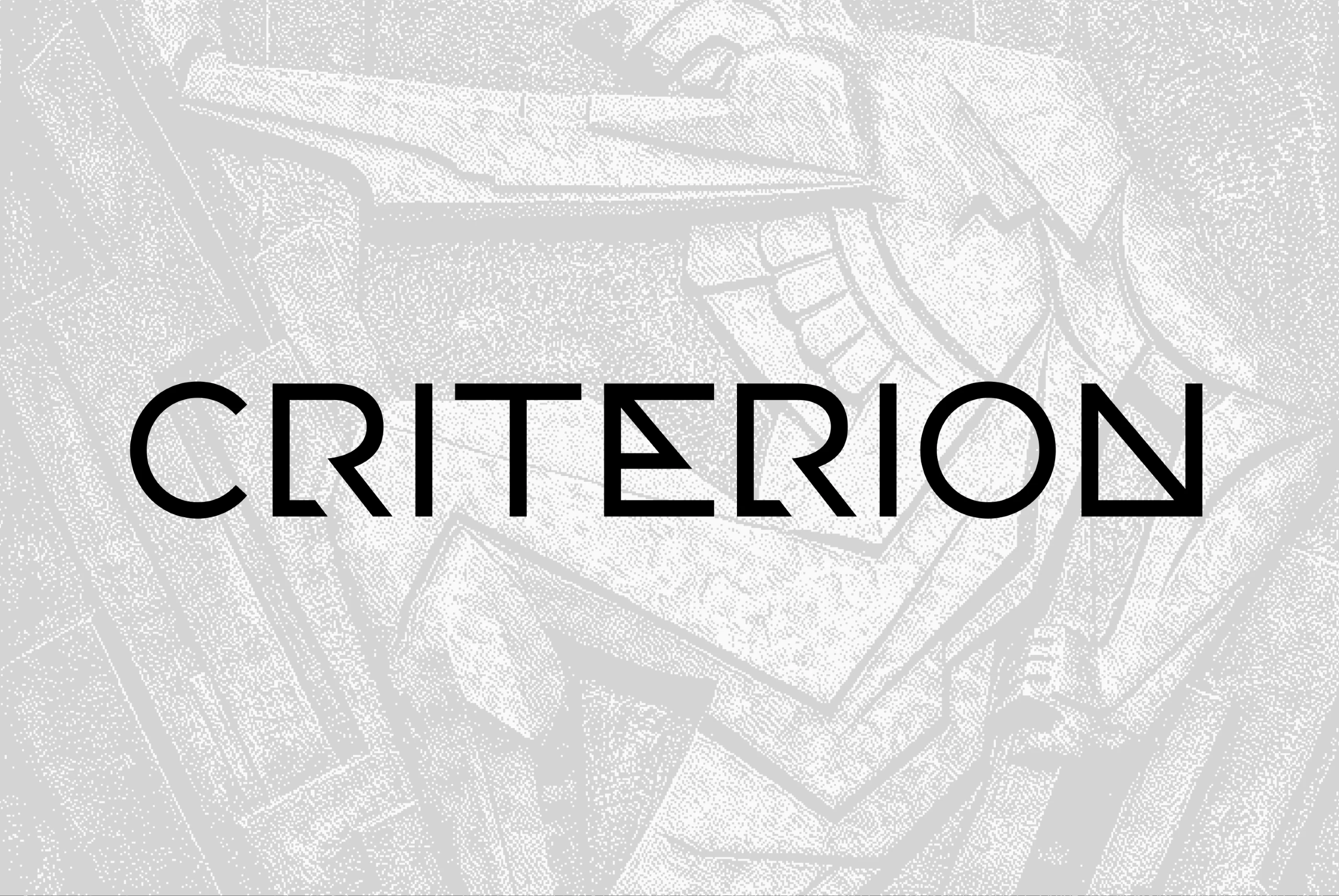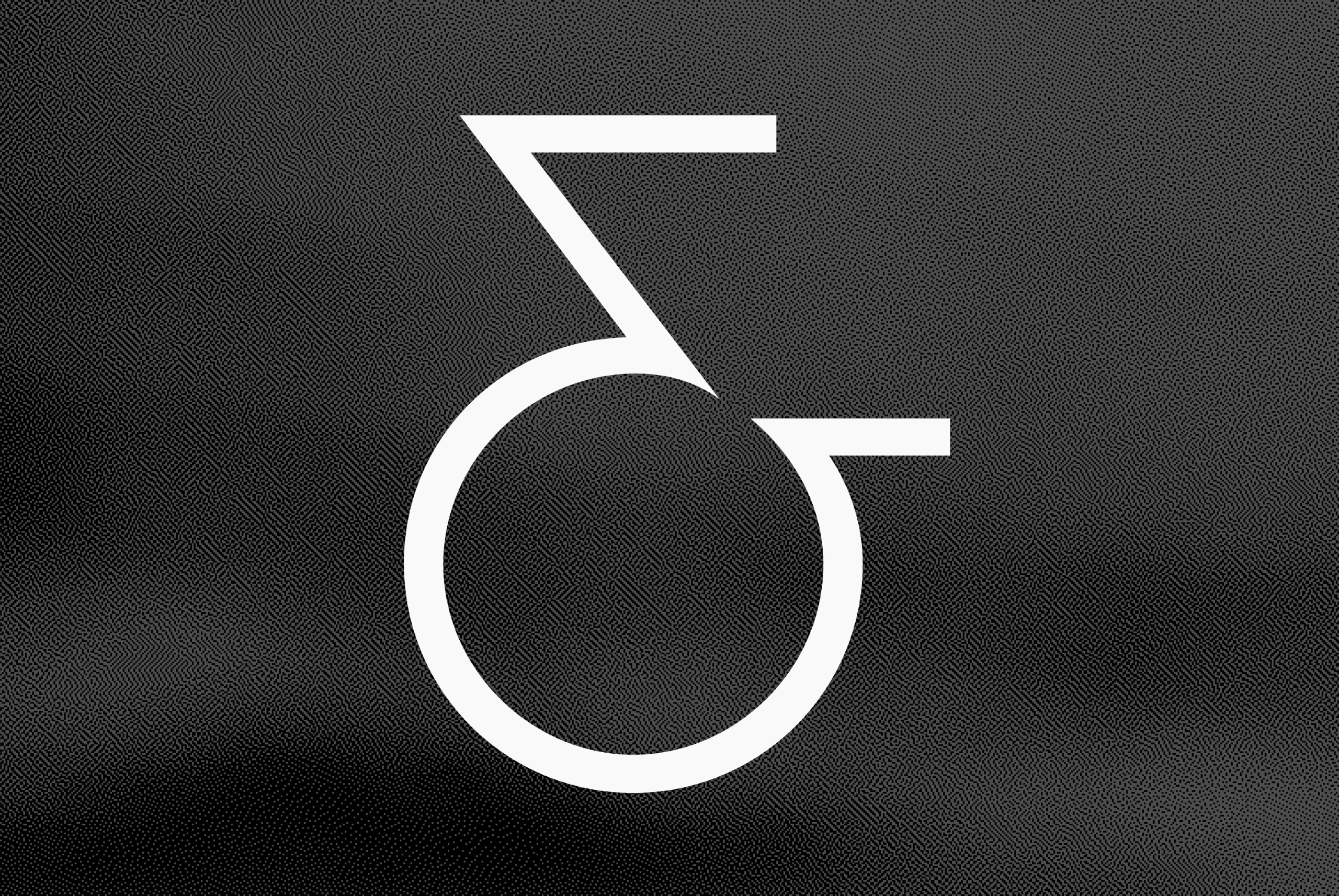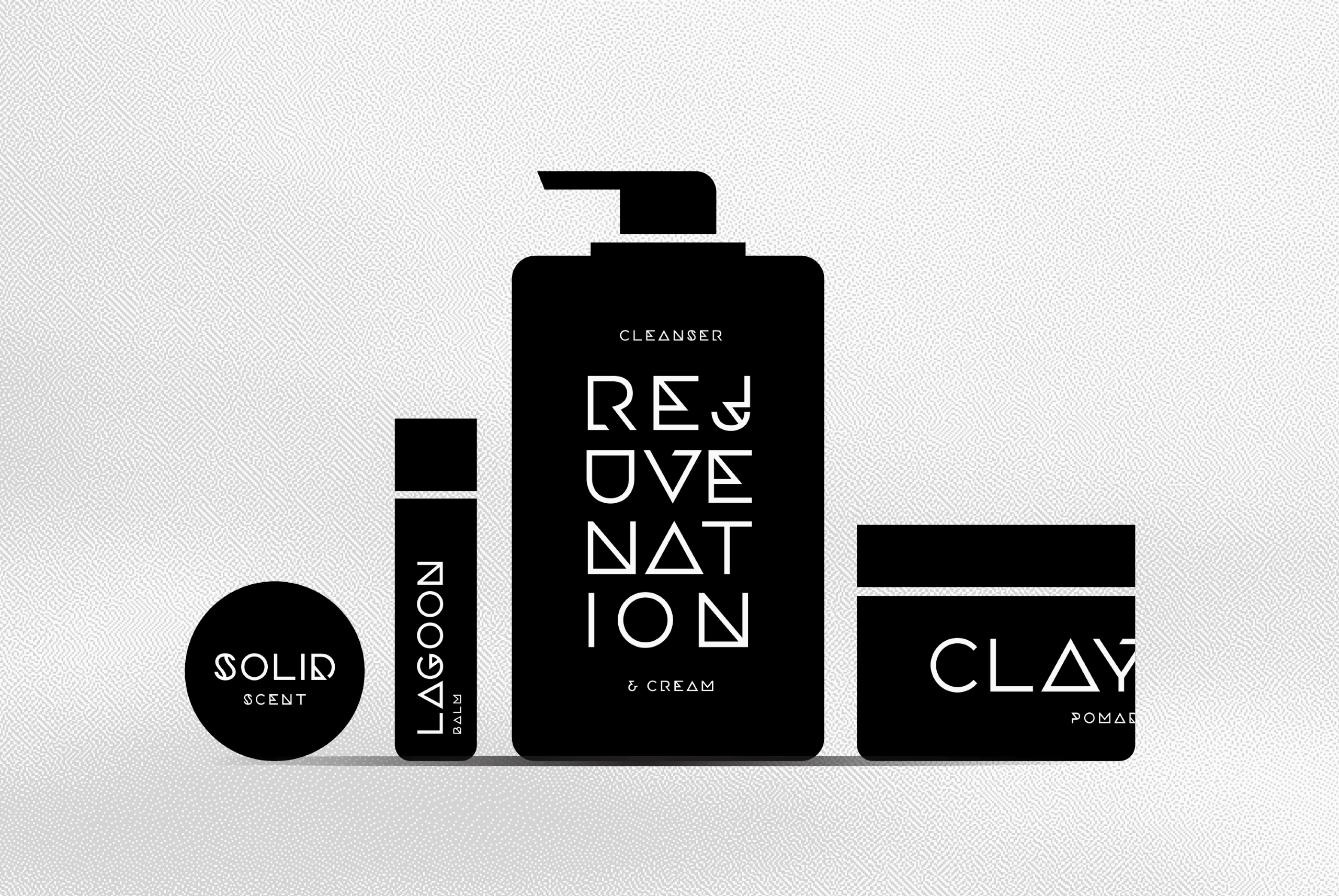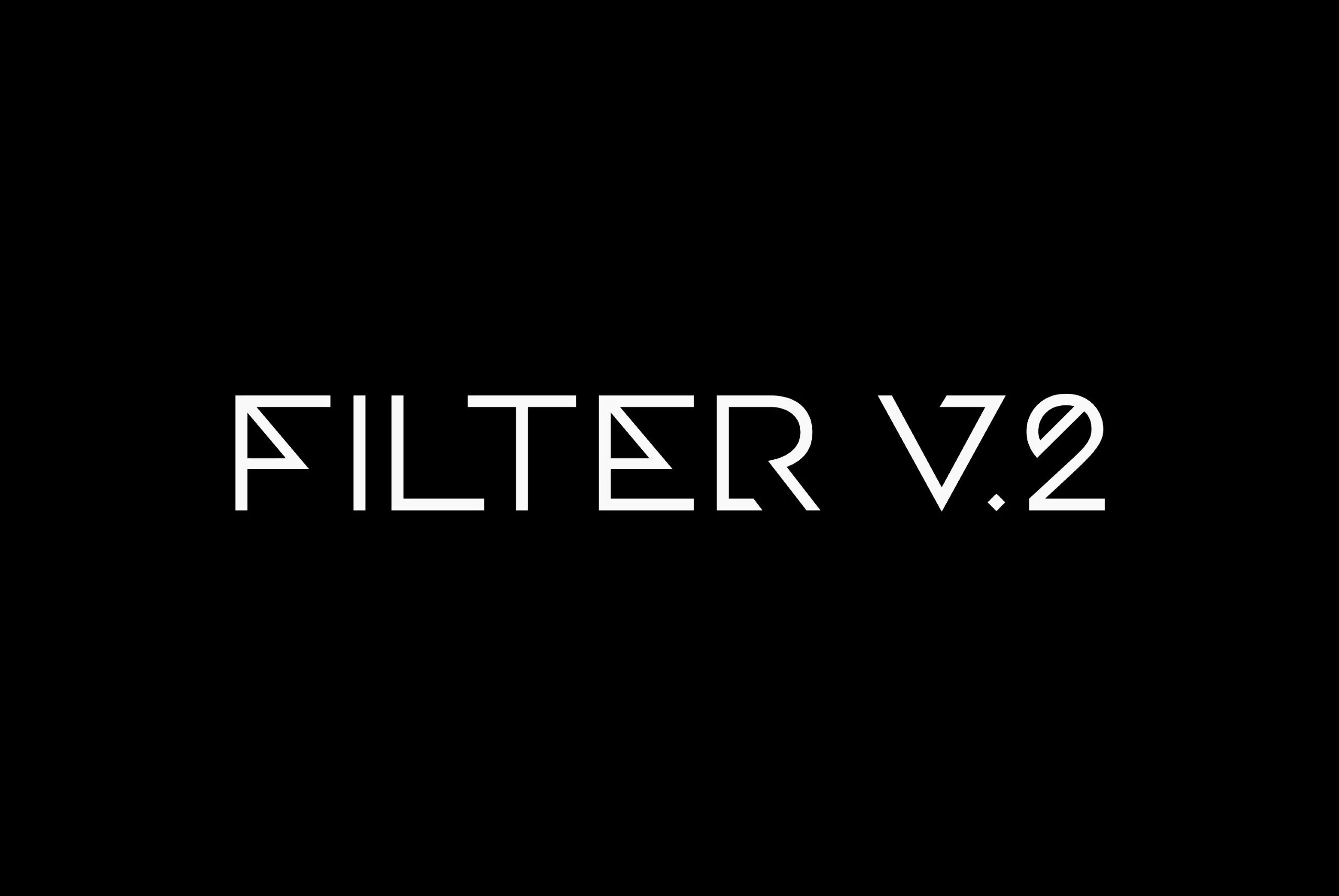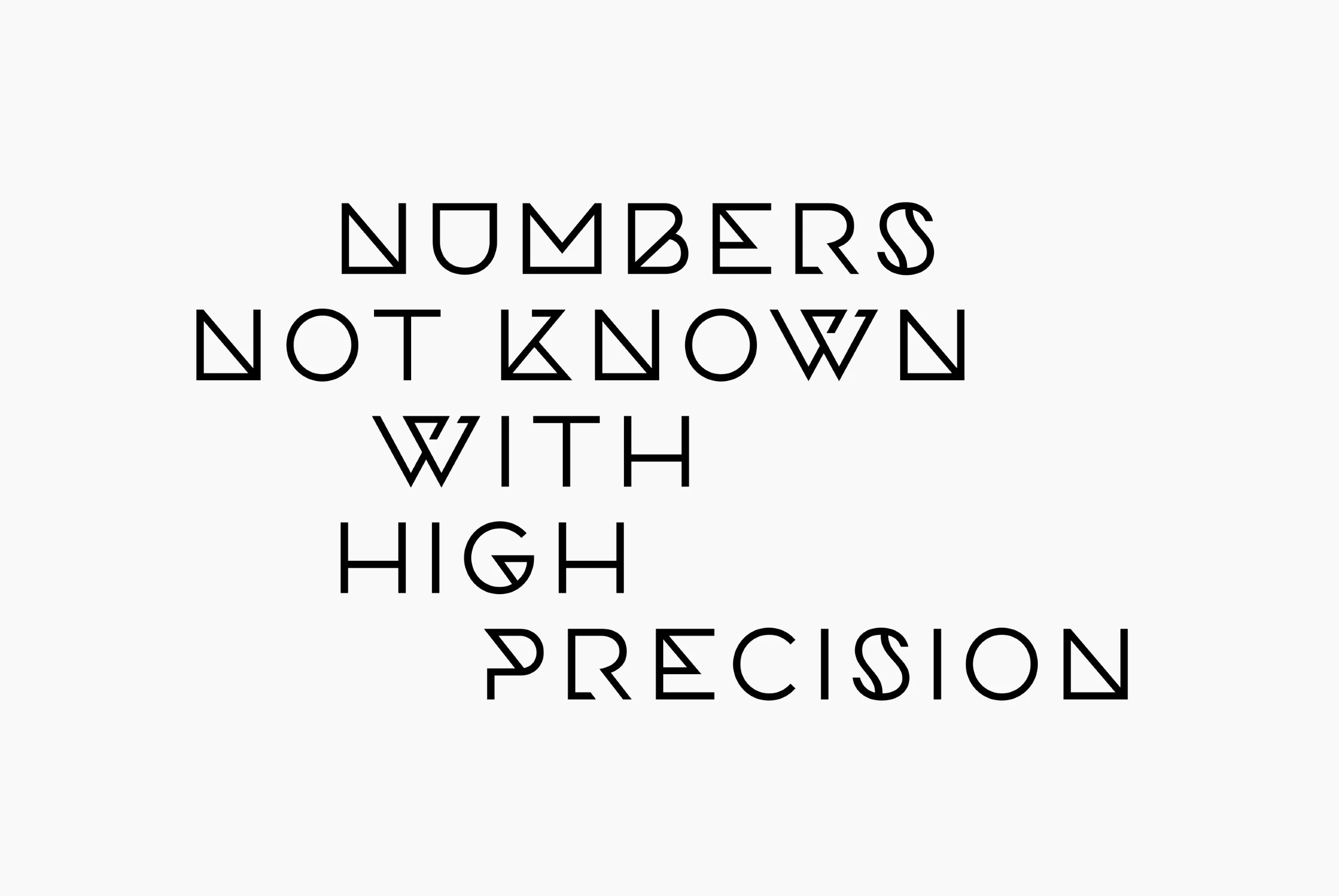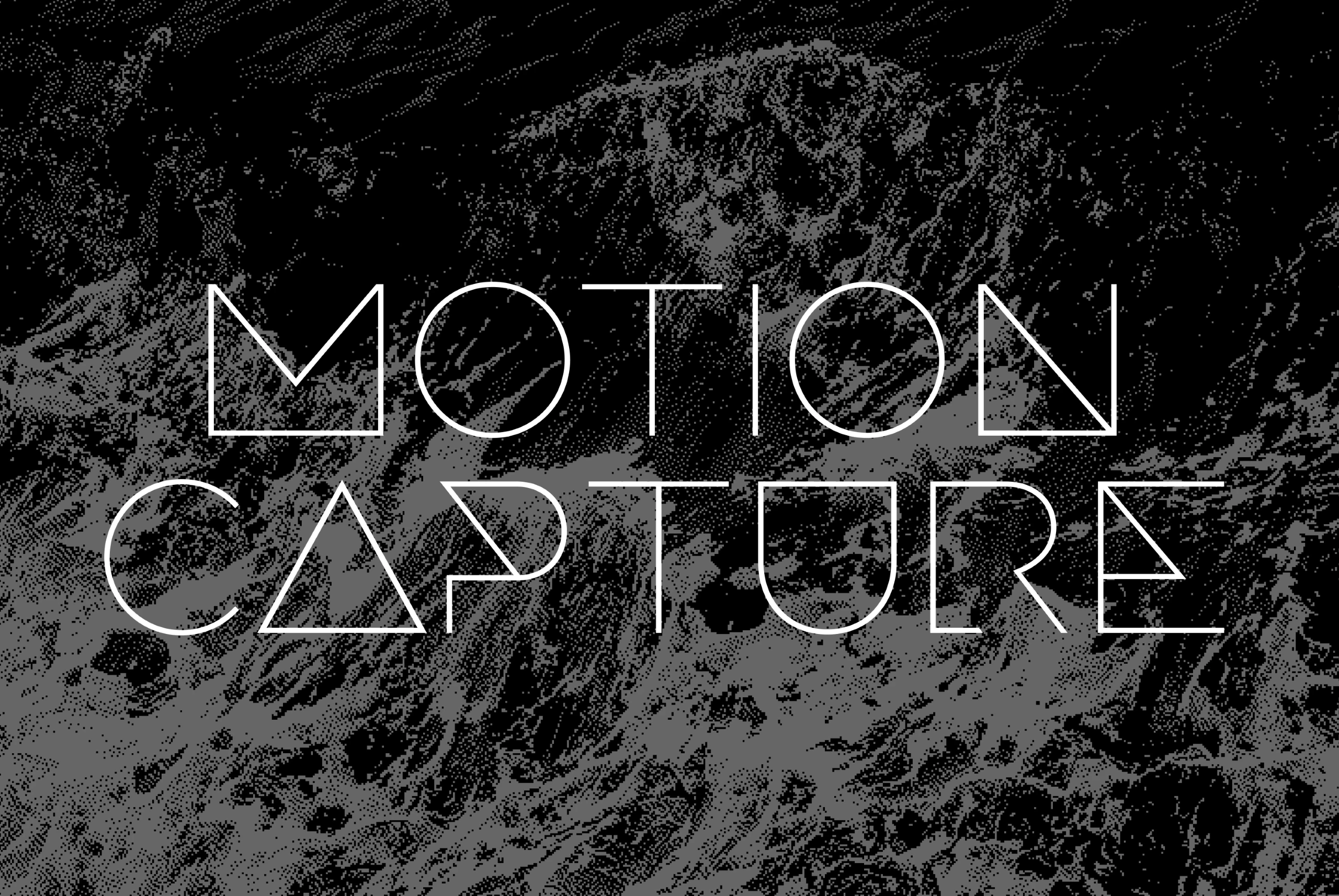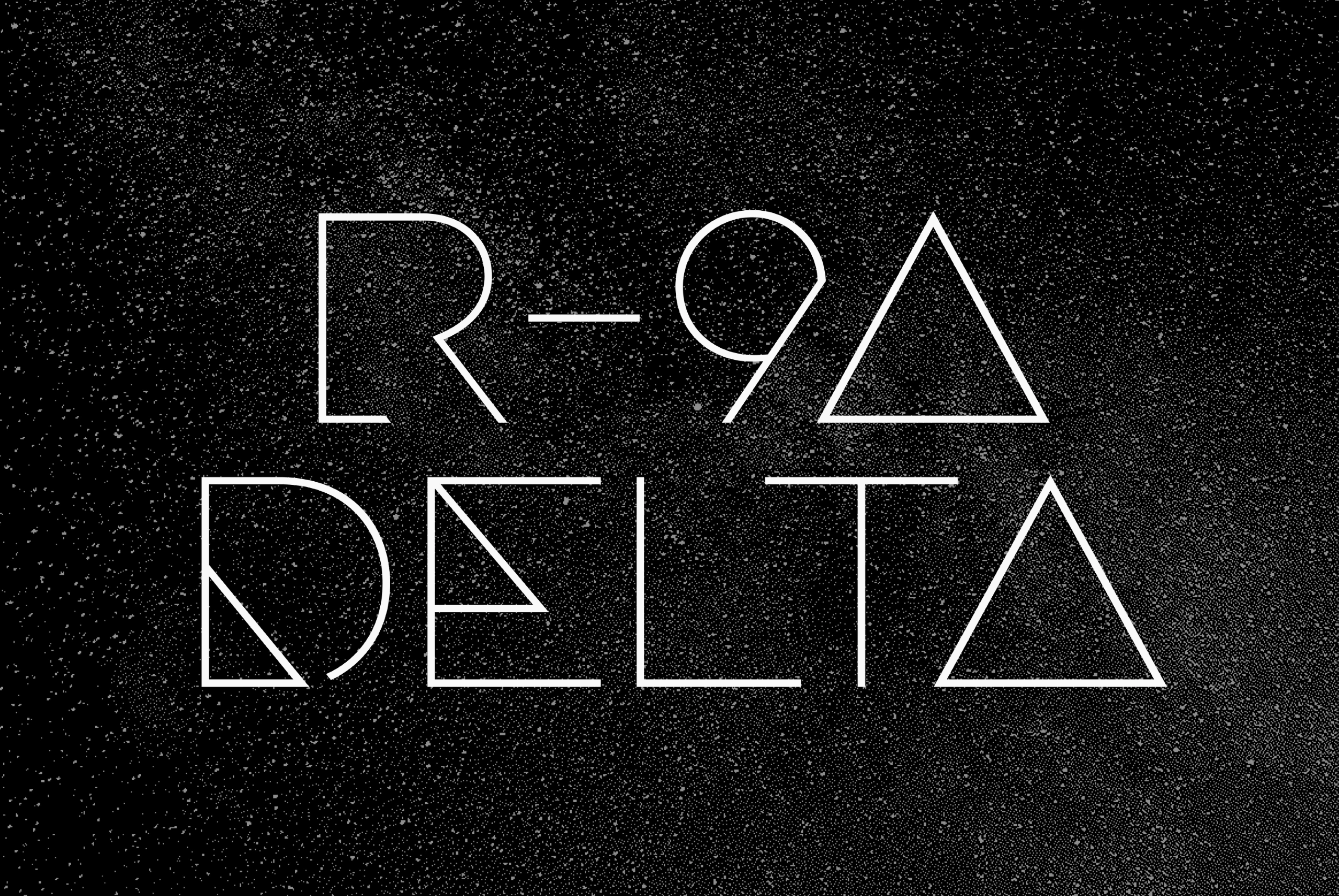
Filter
Fusing constructivism, fashion, and design, Filter is an experimental display typeface in five weights. Excellent for short bursts of stylized text, Filter features Latin and Cyrillic alphabets with nods to art deco, geometry, and science fiction.
five Weights in Latin & Cyrillic Script
Language support includes Belarusian, Bulgarian, Catalan, Croatian, Czech, Danish, Dutch, English, Filipino, Finnish, French, Fula, German, Hungarian, Indonesian, Italian, Malay, Maltese, Norwegian, Portuguese, Romanian, Russian, Serbian, Slovak, Slovenian, Spanish, Swedish, Turkish, Ukrainian, Uzbek